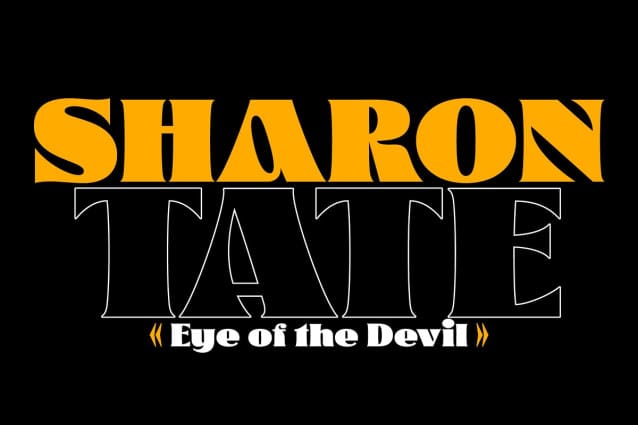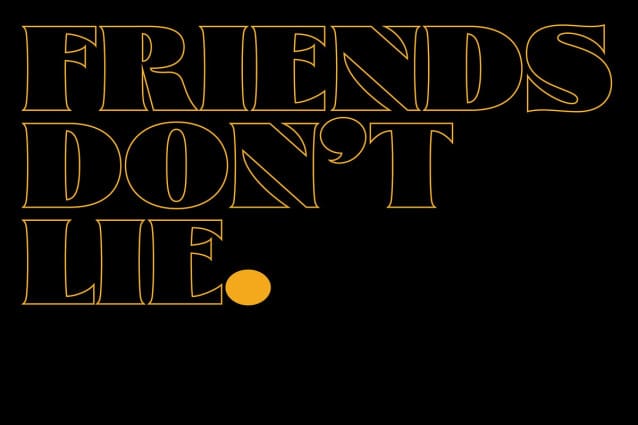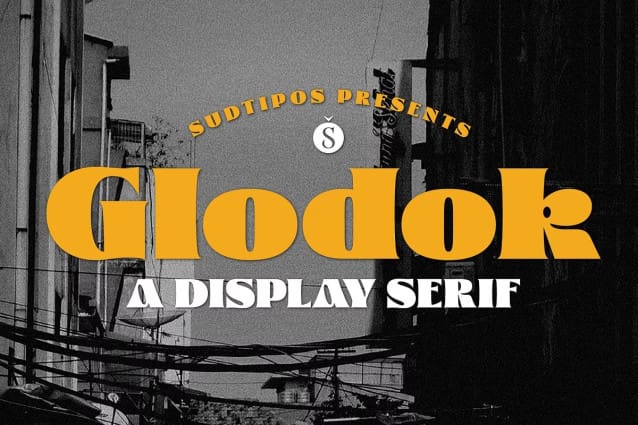
Glodok Font
Glodok Font is a single-weight display typeface. It is bold, heavy and fun to play around with. It’s eye catching but also blends well when in use. It is retro-inspired and strikes a nice balance between formal and playful. The name itself comes from the oldest Chinatown in Jakarta that is also considered the biggest in Indonesia, the place from where the designer took many inspirations. — Glodok has been designed by Novia Jonatan in collaboration with Sudtipos.